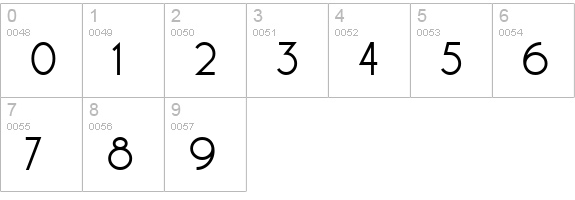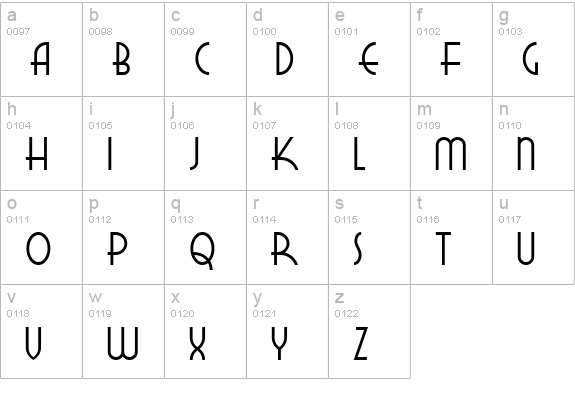
New Deal Deco NF Font Details
New Deal Deco NF font is a stunning display typeface that effortlessly captures the essence of the Art Deco era with its bold geometric shapes and elegant lines. This font exudes a sense of timeless sophistication, making it a perfect choice for projects that require a touch of vintage glamour. What makes New Deal Deco NF font even more appealing is that it is available for free download at FontsMarket.com. This means that you can easily access this beautiful typeface and use it in your designs without any cost. Whether you are working on a branding project, poster design, or any other creative endeavor, New Deal Deco NF font is sure to elevate your work and leave a lasting impression. With its unique style and versatility, New Deal Deco NF font is a must-have for any designer looking to add a touch of classic elegance to their projects. Download it for free today and unleash your creativity with this exquisite typeface.